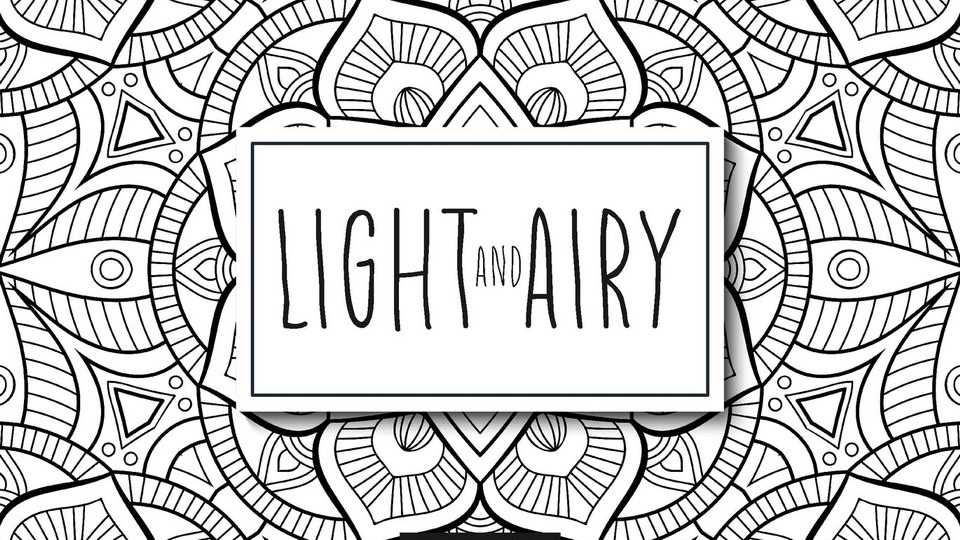
Download Light and Airy font, a unique handwriting typeface with condensed shape, tall and slim, with feminine touch in every word it is written. Suits perfectly for doodle font, food packaging writing, cafeteria wall scribble font, children book cover and more.